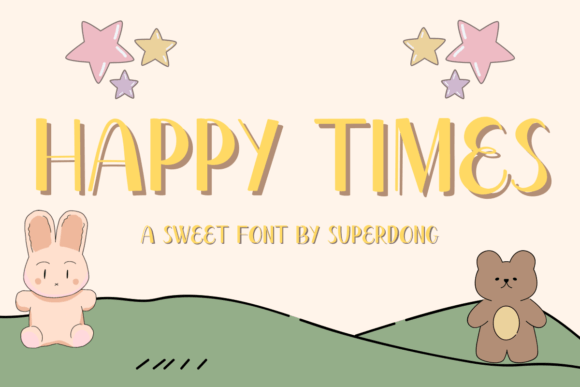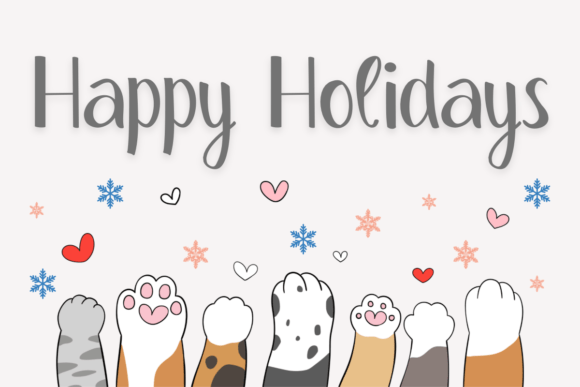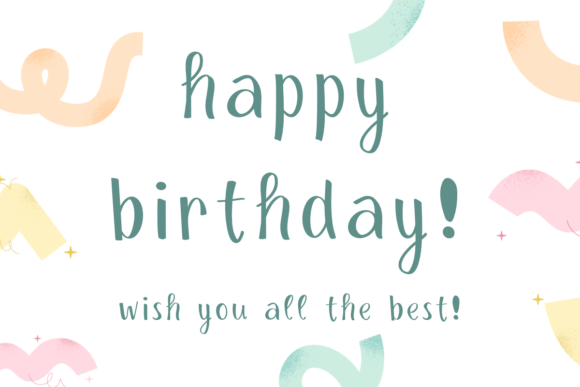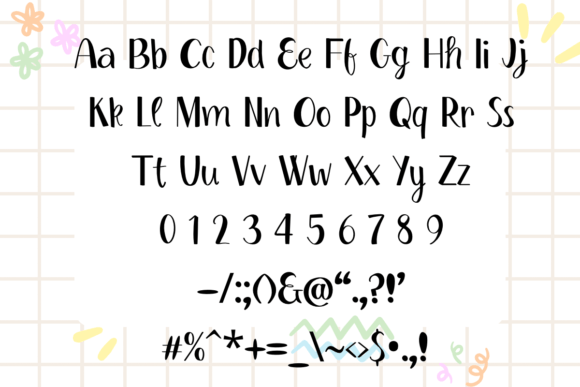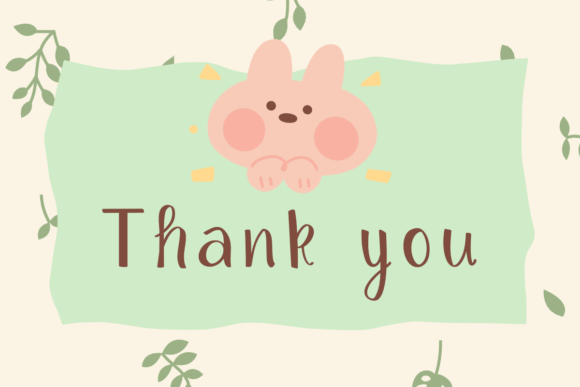
The Joy of Happy Times Font
Remember the thrill of creating something from scratch, watching your imagination come alive with every stroke of the pen? Whether it’s a handmade card for a loved one or a digital design for a client, there’s something special about bringing a smile to someone’s face with your art. For designers and crafty folks alike, the right font can make all the difference in conveying that special touch.
Enter Happy Times Font, a sweet and friendly handwritten display font that’s perfect for adding a fun and playful twist to your designs. From wedding invitations and cards to digital presentations and school projects, this font is sure to bring a smile to everyone’s face. Its value lies in its versatility and ability to add a personal touch to any design, making it a valuable addition to any designer’s toolkit.
Happy Times Font Key Features
- Character Set: The font features a comprehensive character set, including uppercase and lowercase letters, numbers, punctuation marks, and a variety of special characters.
- Unique Characteristics: The Happy Times Font is known for its playful, cursive script and elegant feel, making it an ideal choice for creative and design-intensive projects.
- Font Weight and Style: The Happy Times Font is available in regular, bold, italic, and bold italic styles, providing flexibility and versatility for a variety of design applications.
Happy Times Font Review
Overall, I was quite excited to dive into the Happy Times Font, but my experience was a bit of a mixed bag. Here’s the lowdown.
- The font’s playful, whimsical feel is infectious and perfect for projects that need a lighthearted touch.
- The Happy Times Font’s varied letterforms add a lot of visual interest and make it great for headings and titles.
- The font’s weight and contrast are well-balanced, making it easy to read and use in a variety of contexts.
- The font’s quirky feel may not be to everyone’s taste, and it’s definitely not suitable for formal or serious projects.
- The font’s limited character set means it may not be suitable for languages that require a lot of special characters.
- The font’s bold weight can feel a bit too loud and overpowering at times.
In the end, I think the Happy Times Font is a solid choice for projects that need a fun, lighthearted feel. While it may not be the best fit for every project, it’s definitely a great option for those looking to add a bit of whimsy to their design.
Happy Times Font is ideal for creating cheerful and playful designs, such as:
– Social media posts and advertisements
– Children’s party invitations and decorations
– Food and beverage branding
– Educational materials and worksheets
Tips for getting the most out of Happy Times Font include:
– Using it in conjunction with bright and bold colors
– Experimenting with different font sizes and styles
– Combining it with other playful fonts for a unique look
Alternatives to Happy Times Font
The Happy Times Font is a modern sans-serif font known for its playful and upbeat feel. However, designers may be looking for alternatives that offer similar characteristics or a unique twist. Here are a few options to consider.